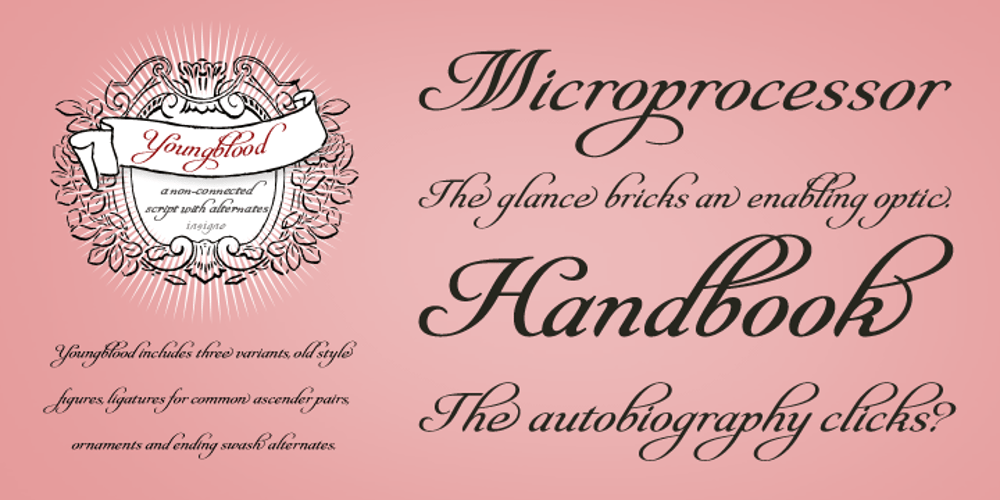
Youngblood
Youngblood font
Youngblood Font Family was designed by Jeremy Dooley and published by insigne. Youngblood contains 3 styles and family package options. Youngblood is a non-connected formal script with tall, sweeping ascenders and two alternates. These alternate forms can be mixed and matched for a custom look, and Youngblood is stronger in weight and is better suited for display work than most script fonts. Although Youngblood looks back to traditional copperplate scripts for inspiration, there is a new and exciting spirit to the design. Youngblood includes OpenType ending swashes, ornaments, ligatures, discretionary ligatures for most common ascender pairs and old style figures.